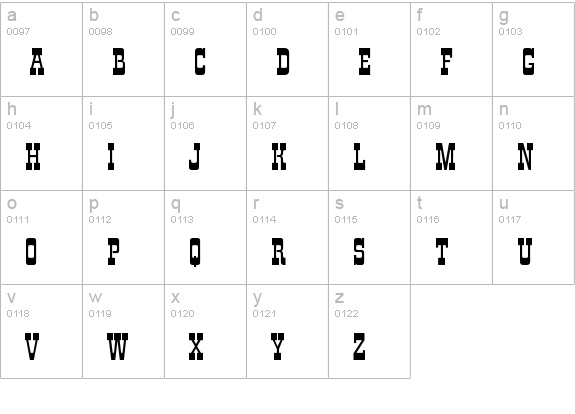
Cimarron-Regular Font Details
Cimarron-Regular is the standard, neutral variant in the Cimarron typeface family \xE2\x80\x94 well suited to general body text, paragraphs, and standard typographic work.
Cimarron-Regular is a versatile and elegant font that exudes a timeless appeal. With its clean lines and classic design, this typeface is perfect for a wide range of projects, from branding to editorial design. The balance between modernity and tradition in Cimarron-Regular makes it a standout choice for those looking to add a touch of sophistication to their work. What sets Cimarron-Regular apart is not just its aesthetic appeal, but also the fact that it is available for free download at FontsMarket.com. This means that you can easily access this high-quality font without any cost, making it a valuable asset for designers and creatives alike. Whether you're working on a print project or a digital design, Cimarron-Regular is sure to elevate your work with its refined and versatile style.